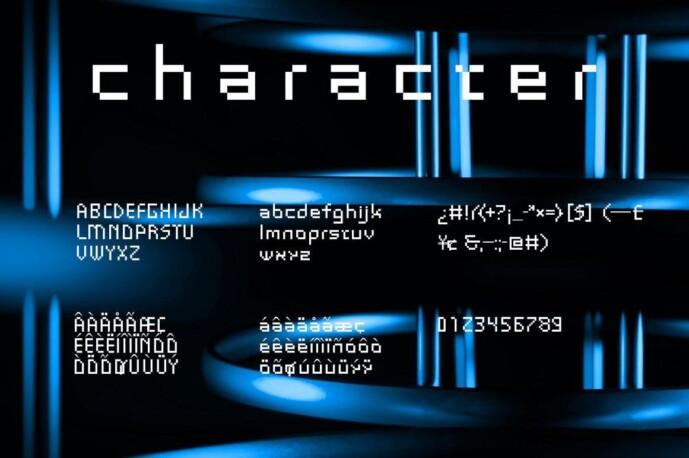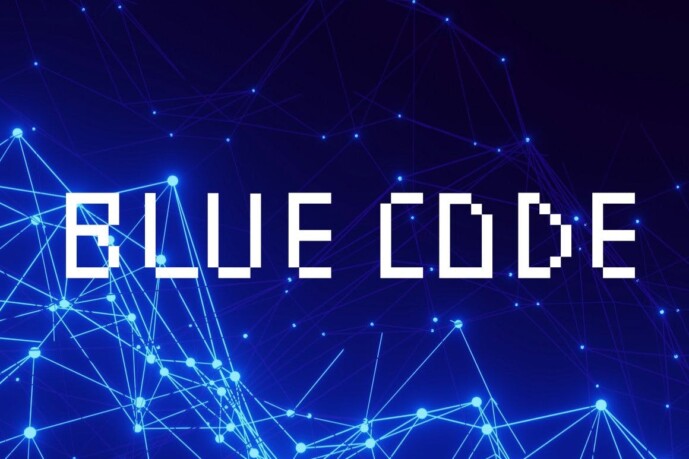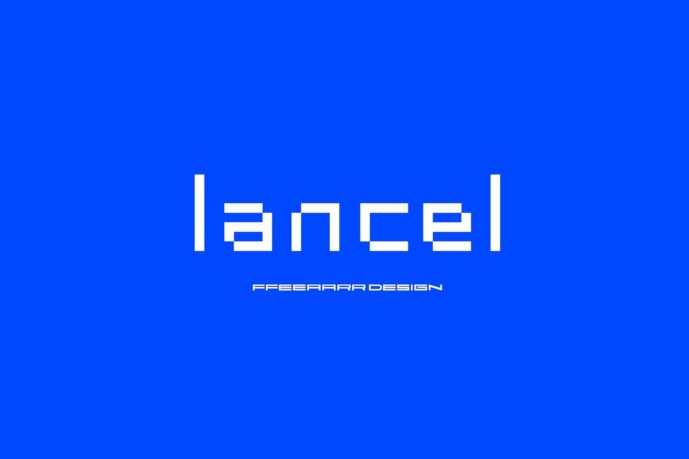
Groutpix Flow Font
Designer: ffeeaarr
Groutpix Flow Font, unleash the code warrior within you. Speak the language of the digital world. This font is for those who push the limits and think outside the box. It’s the perfect voice for your next tech project, video game project, or anything that requires sharp pixelation.